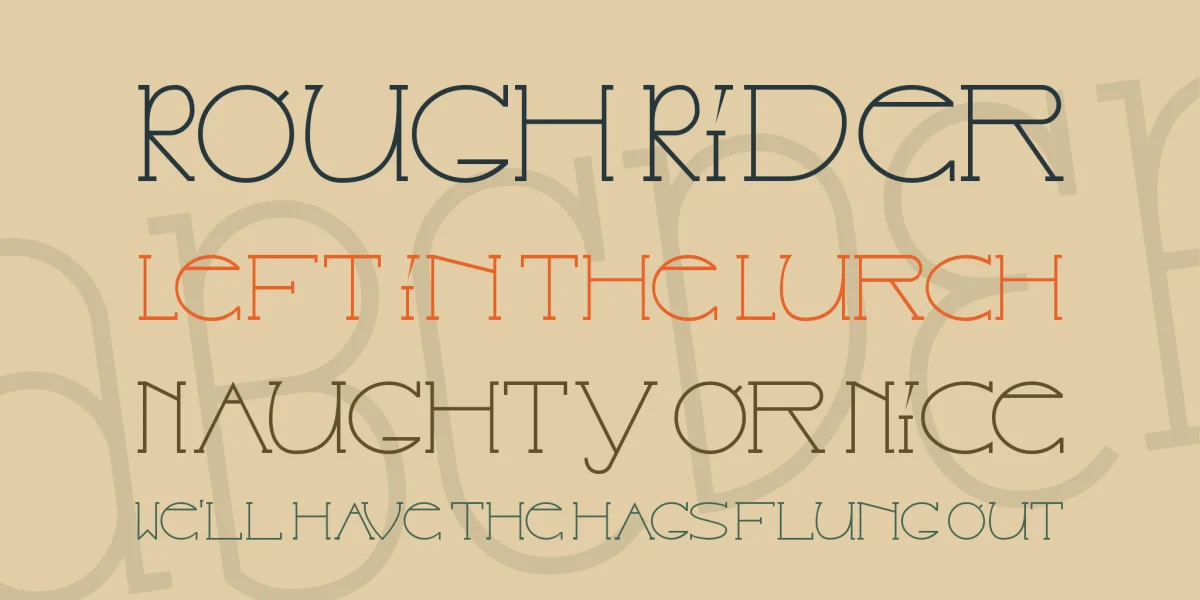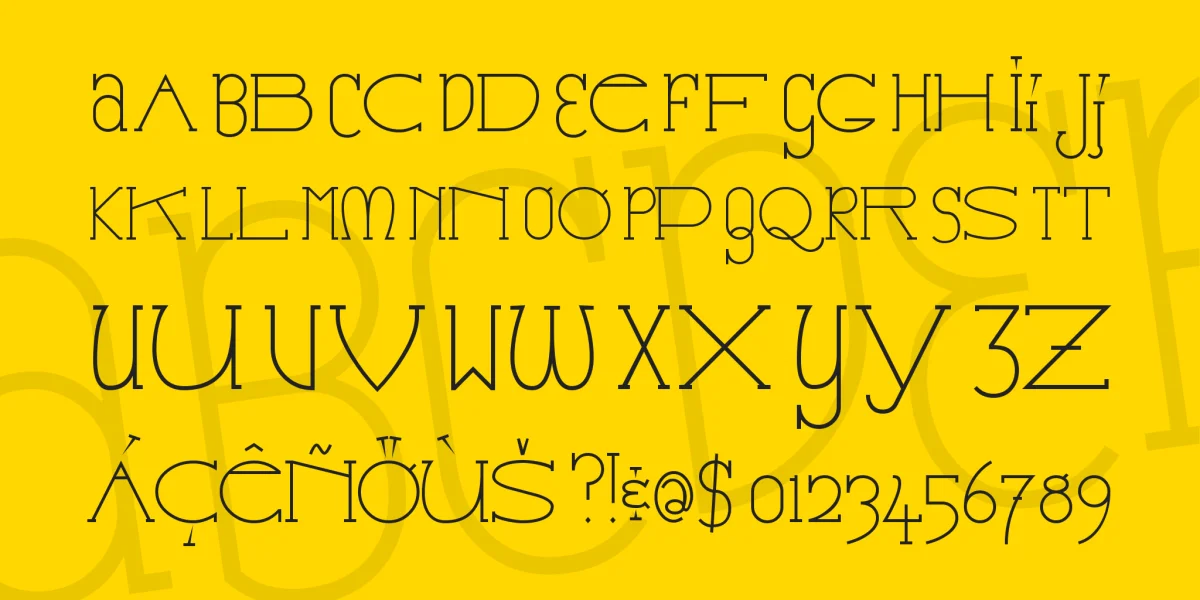
This sister font to Catharsis Macchiato replaces the lowercase characters with ultrawide capitals, and provides a few alternate letter shapes as well. Intended for titles and posters, whereas Macchiato is more suited to actual texts. Some ligatures are also available, mapped onto lesser-used characters of the Mac keyboard. You can see a demo image made with Macchiato on my site: